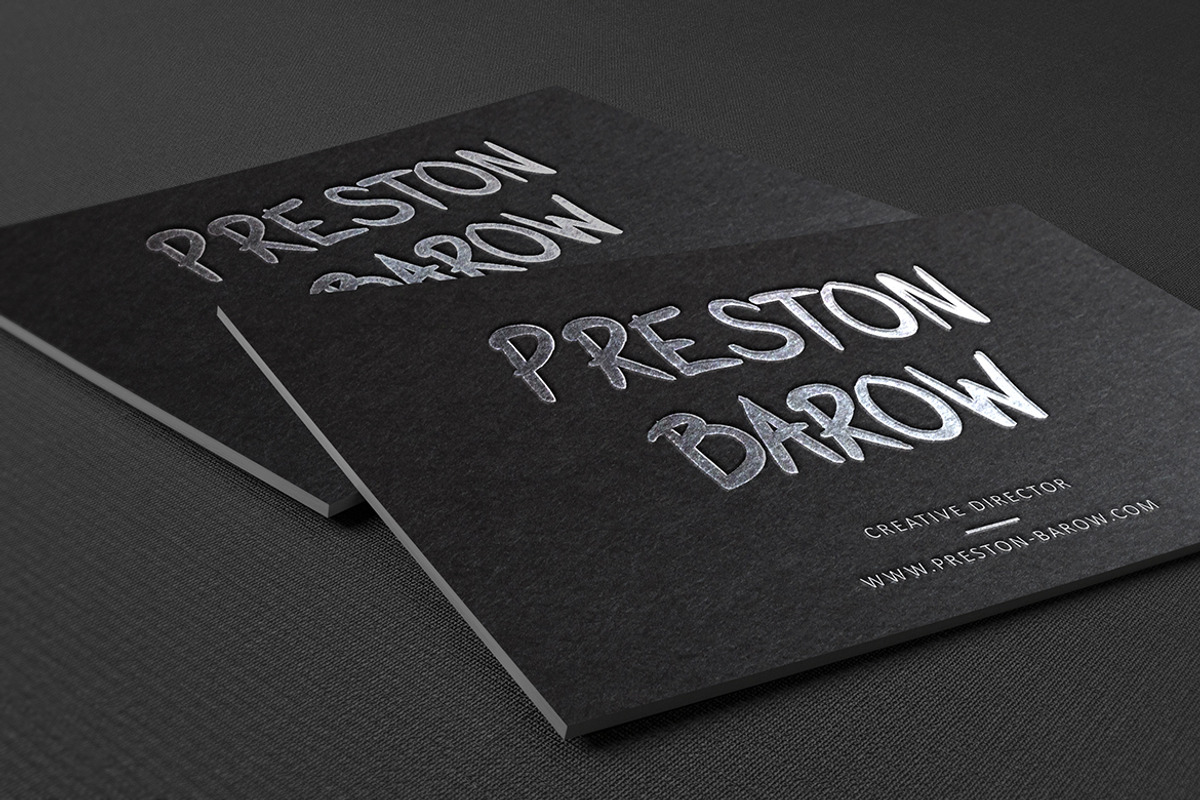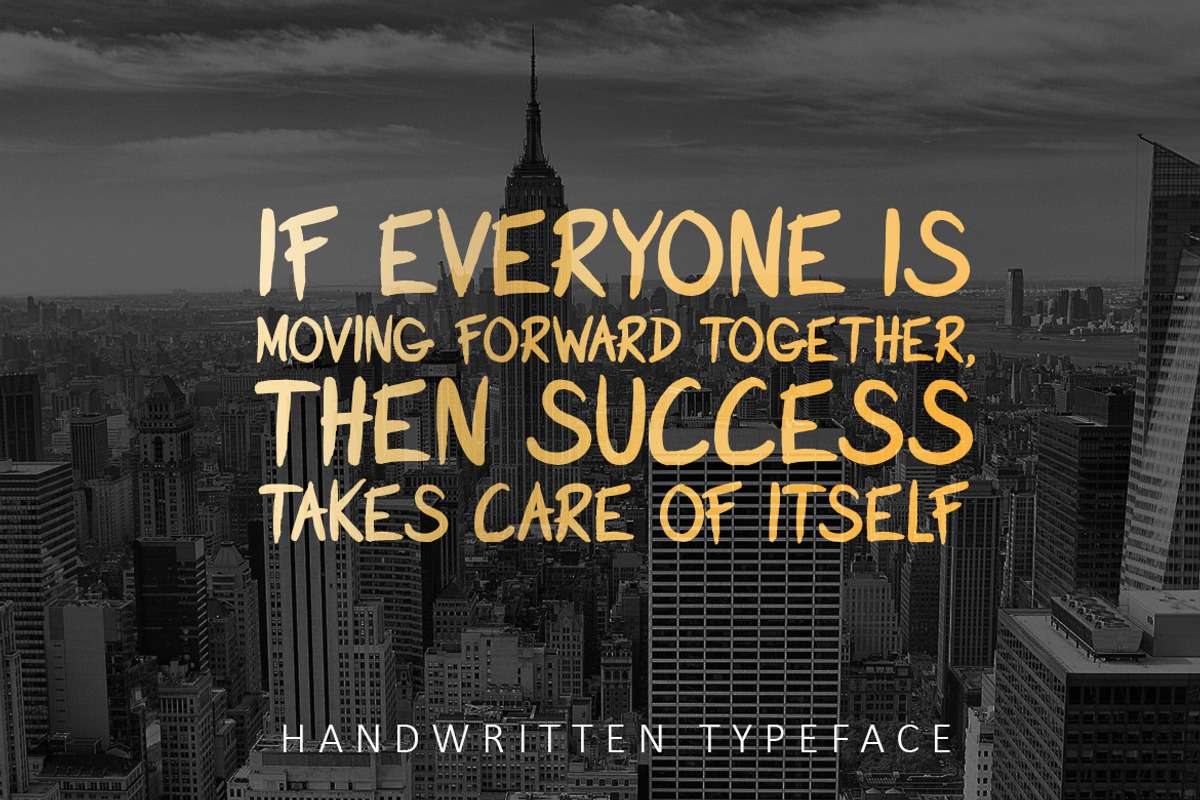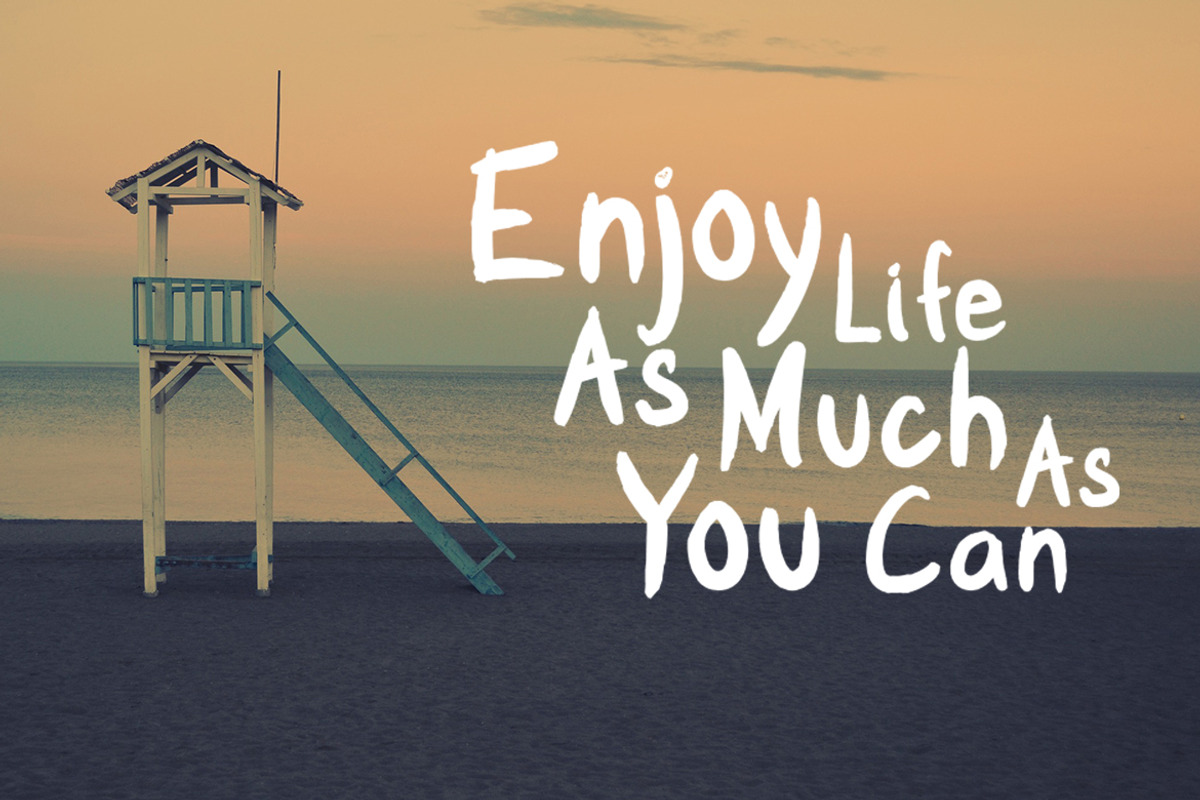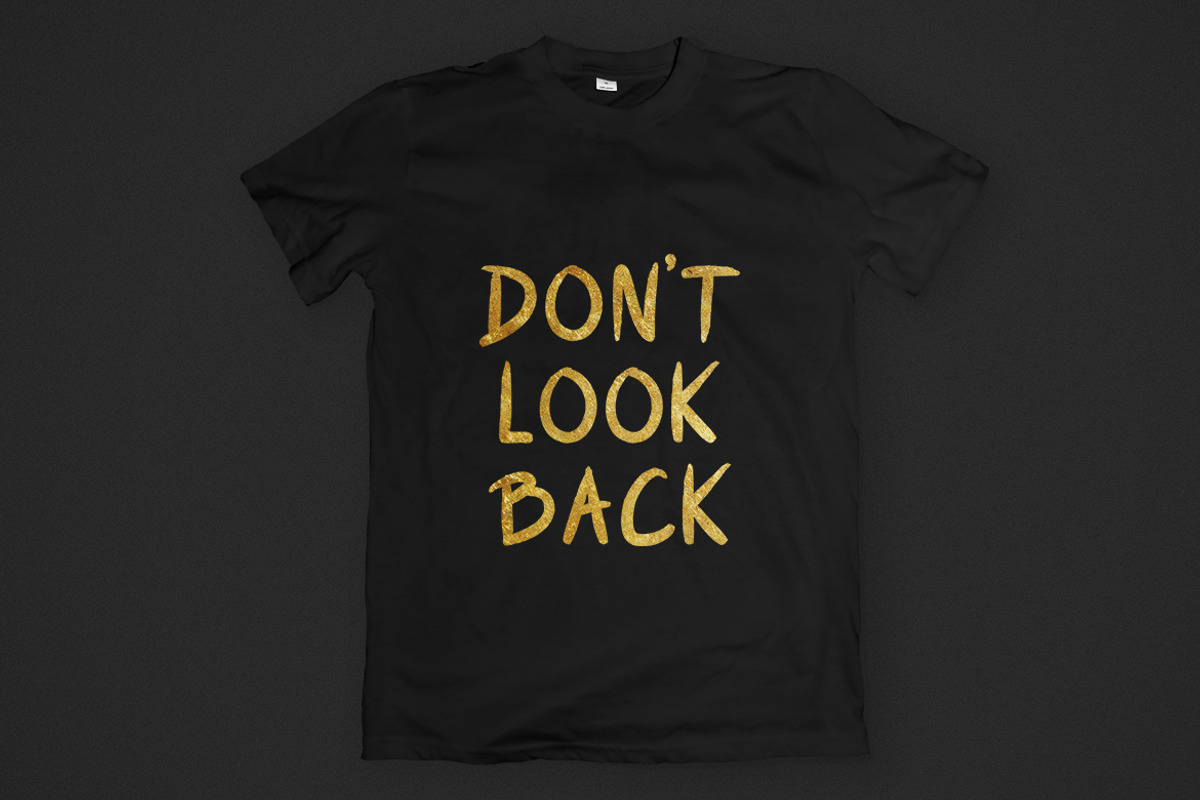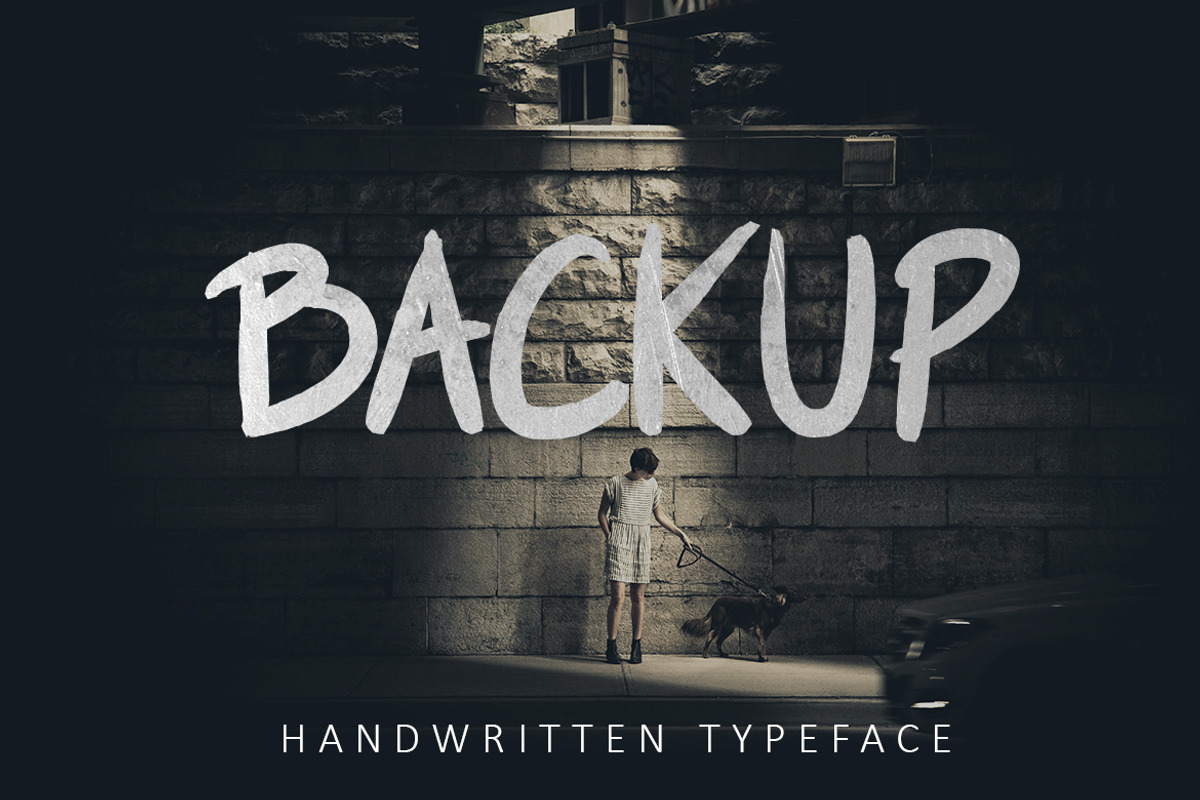
Backup Typeface
Backup Typeface by InMotionLab is a font selected for branding, posters, packaging, typography.
- Backup is a handwritten typeface designed to suit every purpose (logo, flyers, decorations,badges, lettering...) Backup typeface includes: A
Why Backup Typeface is worth a look
Backup Typeface by InMotionLab fits naturally into Branding, posters, packaging, typography.